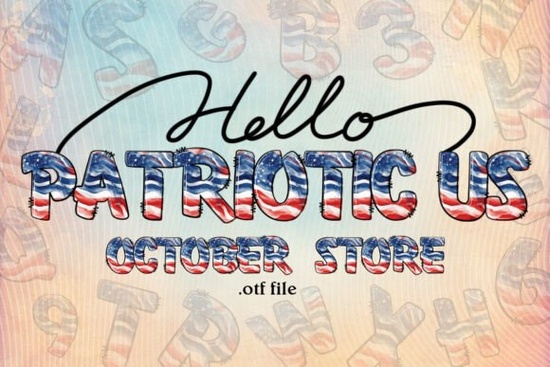
If you're working on a design that calls for bold, celebratory typography especially around the Fourth of July the Patriotic Us Font offers a vibrant and artistic way to bring American spirit to your projects. Designed specifically for Adobe Illustrator, this font features 24 stylized letters and 10 numerals, all rendered in a dynamic tie-dye blend of red, white, and blue. It’s not just decorative it’s built with crafters, small business owners, and print-on-demand creators in mind who want to add authentic patriotic flair without relying on clichéd clip art or basic typefaces.
What makes this font different from other patriotic fonts?
Many Independence Day-themed fonts lean heavily on literal symbols like stars, stripes, or fireworks built directly into each letter. The Patriotic Us Font takes a more nuanced approach: it captures the energy and diversity of American celebration through color and form, rather than overt iconography. This gives your designs room to breathe while still feeling unmistakably festive. Plus, because it’s an OTF file optimized for Illustrator, you get clean vector outlines that scale beautifully ideal for t-shirts, posters, mugs, or digital invitations.
If you’ve browsed Creative Fabrica’s colorful fonts collection, you might have also seen options like the American Flag Font or the Preppy Coquette Font, which cater to different aesthetics. The Patriotic Us Font stands out by blending handcrafted texture with national pride in a way that feels both modern and nostalgic.
Who is this font best suited for?
This font works especially well if you:
- Run a small print-on-demand shop and need fresh, seasonal designs for summer holidays
- Create custom party decor, greeting cards, or social media graphics for community events
- Teach design or crafting workshops and want engaging, theme-based resources
- Are a hobbyist looking to personalize DIY projects like tote bags, banners, or yard signs
How can I use it beyond the Fourth of July?
While the Patriotic Us Font shines during Independence Day campaigns, its energetic style also fits other red-white-and-blue moments throughout the year think Memorial Day barbecues, Veterans Day tributes, election season merch, or even school spirit gear for teams with patriotic color schemes. Pair it with minimalist layouts or layered textures to avoid visual overload.
For complementary styles, check out the American Coquette Font, which blends vintage charm with modern whimsy, or the Back-to-School Font collection if you’re planning early fall designs that still carry a hint of summer celebration.
Tips for getting the most out of this font
Because each character is individually illustrated with rich gradients and blended hues, here are a few practical suggestions:
- Use it as a headline or accent font only. Its detailed coloring can become overwhelming in body text or small sizes.
- Stick to dark or neutral backgrounds. The tie-dye effect pops best against black, navy, kraft paper tones, or clean white.
- Avoid over-layering. Let the font be the focal point skip heavy drop shadows or extra effects that compete with its built-in vibrancy.
- Test print colors beforehand. Some printers may not reproduce the gradient smoothly, so do a small proof run if using for physical products.
And remember: while this font celebrates American themes, its artistic interpretation makes it versatile enough for inclusive, community-focused messaging not just political or military contexts.
Ready to try it?
If you already use Illustrator and want a distinctive, ready-to-go asset for summer designs, the Patriotic Us Font could save you hours of custom lettering work. Just head to Creative Fabrica, confirm compatibility with your software, and download the OTF file. Then experiment with scale, spacing, and background pairings to find your perfect balance of patriotism and personality.